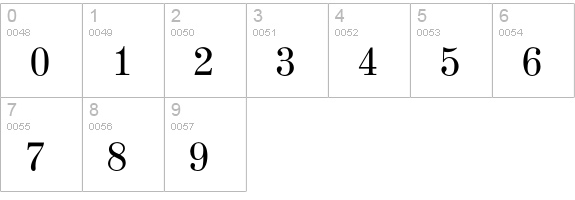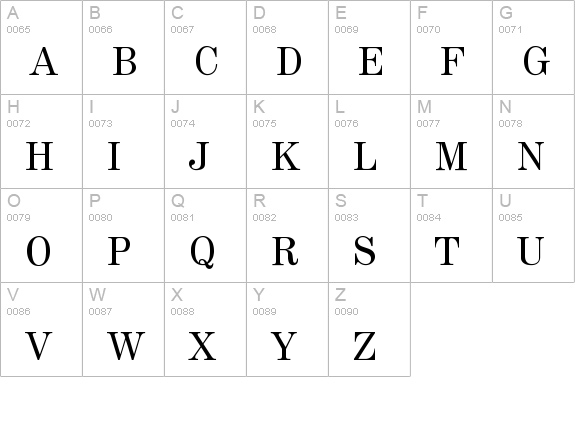
Madison Roman Font Details
Introducing Madison Roman, a timeless font that exudes elegance and sophistication. With its clean lines and classic proportions, Madison Roman is perfect for adding a touch of refinement to any design project. This versatile font is suitable for a wide range of applications, from wedding invitations and formal event announcements to branding materials and editorial layouts. Its legibility and readability make it a popular choice among designers and typographers alike. One of the best features of Madison Roman is that it is freely available to download at FontsMarket.com. This means that you can easily access this stunning font without breaking the bank. Whether you're a professional designer or a creative enthusiast, Madison Roman offers you the opportunity to add a touch of luxury to your projects without any cost. Designed with meticulous attention to detail, Madison Roman is a true testament to the art of typography. Its graceful curves and precise letterforms create a harmonious balance that is pleasing to the eye. The font's lowercase characters have a slight inclination, adding a subtle touch of elegance. Madison Roman also comes with a variety of alternate letterforms, ligatures, and swashes, allowing you to customize your designs and create unique compositions. These additional features give you the creative freedom to make your designs truly stand out. With its timeless appeal and versatile nature, Madison Roman is a font that will never go out of style. Whether you're designing a sophisticated logo, crafting a refined invitation, or creating a luxurious brand identity, this font is sure to elevate your designs to new heights. Download Madison Roman for free at FontsMarket.com and unlock the possibilities of this exquisite font. Let your creativity soar and bring your designs to life with the elegance and charm of Madison Roman.